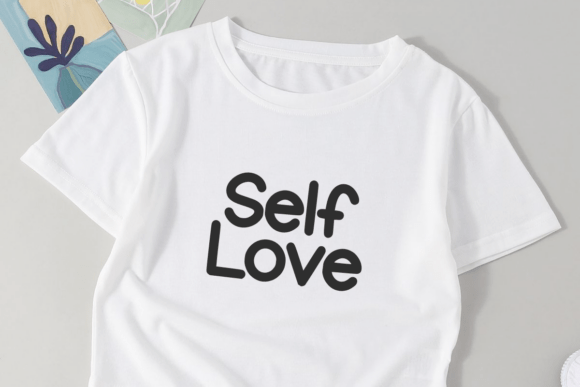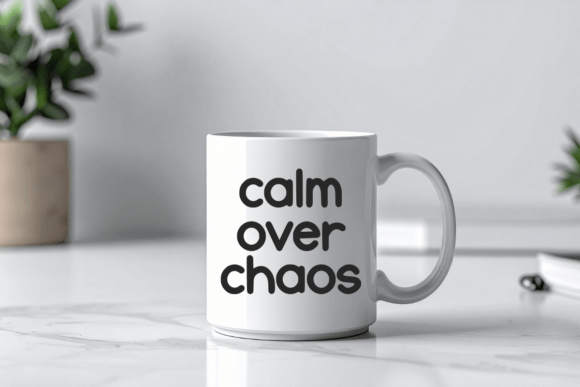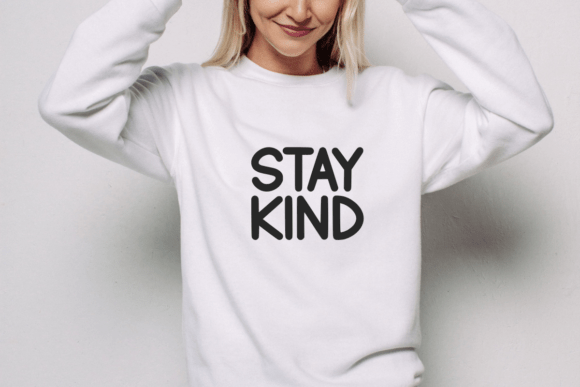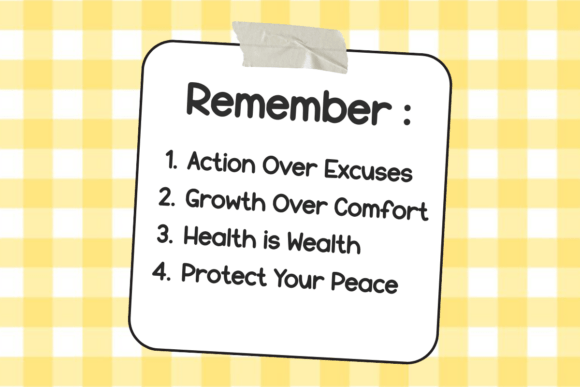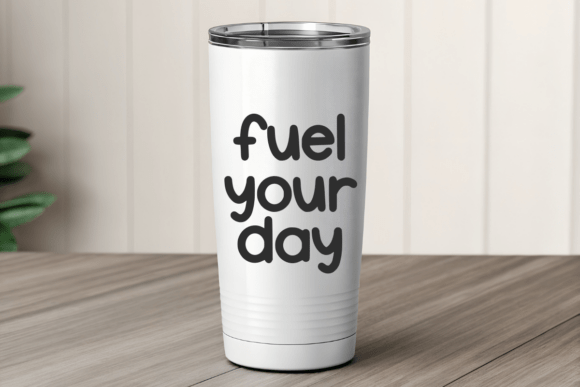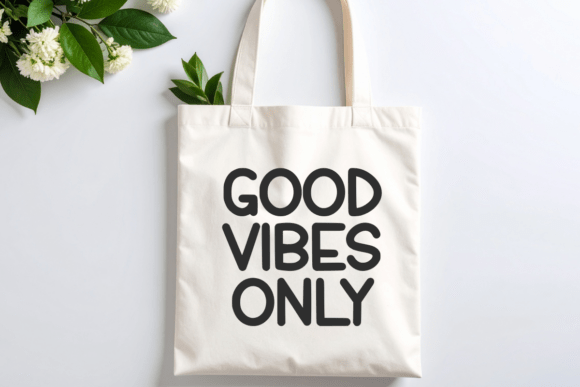
Gummy Sunday Font: The Perfect Handwriting Font for Crafty Projects
Are you a crafter, designer, or DIY enthusiast looking for a font that can add a touch of warmth and personality to your projects? Look no further than the Gummy Sunday Font! This adorable handwriting font is designed to bring a soft, friendly, and natural look to your craft projects, making it perfect for a wide range of applications.
What is Gummy Sunday Font?
Gummy Sunday Font is a cute handwriting font that is designed to mimic the look of handwritten text. Its simple strokes and smooth curves make it easy to read and use in a variety of projects. The font is perfect for crafty projects, such as planners, stickers, kids’ worksheets, classroom printables, and DIY designs.
Characteristics of Gummy Sunday Font
The Gummy Sunday Font has several characteristics that make it stand out from other fonts. Some of its key features include:
- Soft and friendly look: The font has a warm and inviting look that is perfect for creating a friendly and approachable atmosphere in your projects.
- Handcrafted feel: The font has a handcrafted feel that makes it perfect for crafty projects, such as handmade cards, scrapbooks, and DIY designs.
- Simple strokes and smooth curves: The font’s simple strokes and smooth curves make it easy to read and use in a variety of projects.
- Easy to cut with Cricut and Silhouette: The font’s clean lines and simple shapes make it easy to cut using Cricut and Silhouette machines.
Uses for Gummy Sunday Font
The Gummy Sunday Font is versatile and can be used in a wide range of projects, including:
- Quotes and greeting cards: The font is perfect for creating inspirational quotes, greeting cards, and invitations.
- Kids’ labels and worksheets: The font is great for creating fun and engaging labels, worksheets, and coloring pages for kids.
- Bullet journals and planners: The font is perfect for creating bullet journals, planners, and journals that are both functional and stylish.
- Scrapbooks and DIY designs: The font is great for creating scrapbooks, photo albums, and DIY designs that require a personal touch.
- Classroom printables: The font is perfect for creating classroom printables, such as posters, charts, and worksheets.
Why Choose Gummy Sunday Font?
There are many reasons why you should choose Gummy Sunday Font for your next project. Some of the benefits of using this font include:
- Unique and playful look: The font has a unique and playful look that will add a touch of personality to your projects.
- Versatile: The font is versatile and can be used in a wide range of projects.
- Perfect for crafty projects: The font is perfect for crafty projects, such as handmade cards, scrapbooks, and DIY designs.
Tips for Using Gummy Sunday Font
Here are some tips for using Gummy Sunday Font in your projects:
- Use it with bright colors: The font looks great with bright colors, so don’t be afraid to experiment with different color combinations.
- Mix it with other fonts: The font can be paired with other fonts to create a unique and interesting look.
- Use it for headings and titles: The font is perfect for headings and titles, as it adds a touch of personality and whimsy to your projects.
- Experiment with different sizes: The font can be used in a variety of sizes, from small to large, so experiment with different sizes to see what works best for your project.
In conclusion, the Gummy Sunday Font is a versatile and playful font that is perfect for crafty projects, designers, and DIY enthusiasts. Its soft and friendly look, handcrafted feel, and simple strokes and smooth curves make it easy to use and perfect for a wide range of applications. Whether you’re creating quotes, greeting cards, kids’ labels, or DIY designs, the Gummy Sunday Font is a great choice.